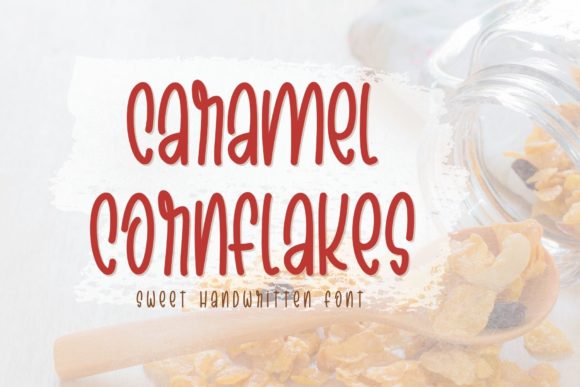
The Sweet Spot: Discovering Caramel Cornflakes Font
I’ll never forget the design project that led me to Caramel Cornflakes font. I was working on a whimsical branding project for a new bakery, and I was struggling to find the perfect font to capture the playful, friendly vibe of their treats. A client request for something “warm and inviting” had me scouring font libraries far and wide. That’s when I stumbled upon Caramel Cornflakes – a cute and quirky handwritten font that instantly won me over.
- ✅ Friendly and approachable feel that’s perfect for a wide range of design projects
- ✅ Unique character set with plenty of personality
- ✅ Extensive OpenType features, including glyphs and stylistic alternates
- ⚠️ Some characters may not work well in all contexts (e.g., using the font for body text in a lengthy article)
- ⚠️ Limited availability of condensed or italic versions
The Story Behind Caramel Cornflakes: A Designer’s Inspiration
Caramel Cornflakes was designed by a talented typographer who wanted to create a font that captured the warmth and friendliness of a favorite breakfast treat. With its unique character set and extensive OpenType features, Caramel Cornflakes is the perfect choice for designers looking to add a touch of whimsy to their projects.
Q: What makes Caramel Cornflakes font so special?
A: Caramel Cornflakes font is special because of its unique character set, friendly feel, and extensive OpenType features.
Q: Is Caramel Cornflakes suitable for body text?
A: While Caramel Cornflakes is highly legible, it may not be the best choice for lengthy body text. It’s better suited for headings, titles, and short paragraphs.